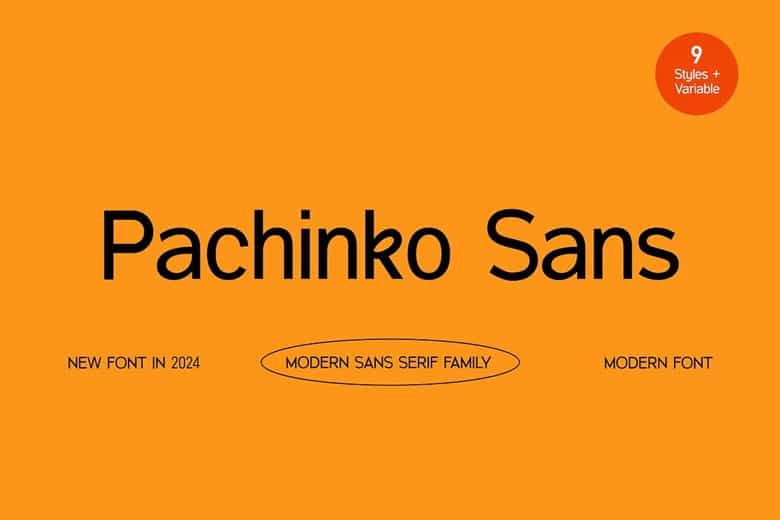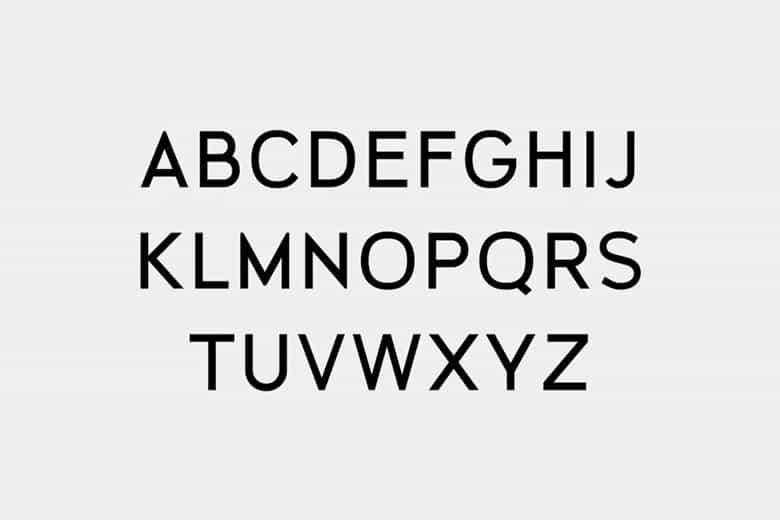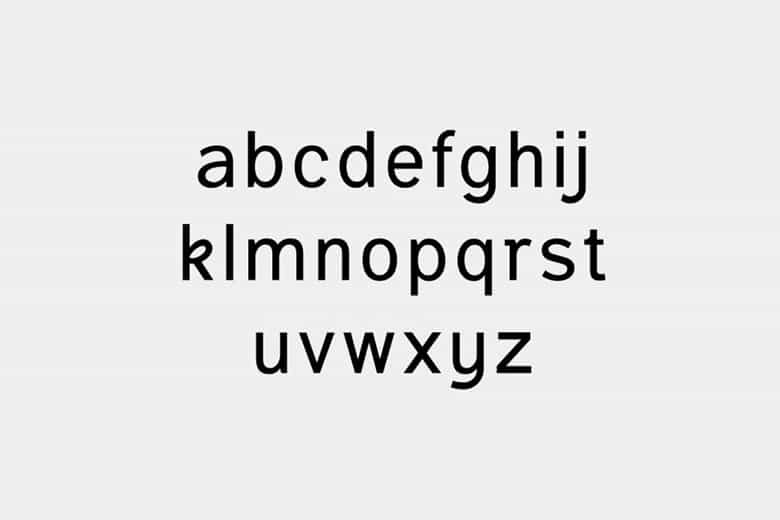
Pachinko Sans is a clean and simple sans-serif font family with a contemporary look with good legibility. It will work well for signatures, letterheads, logos, wedding, quotes, novel or magazine covers, header of websites, branding and much more.